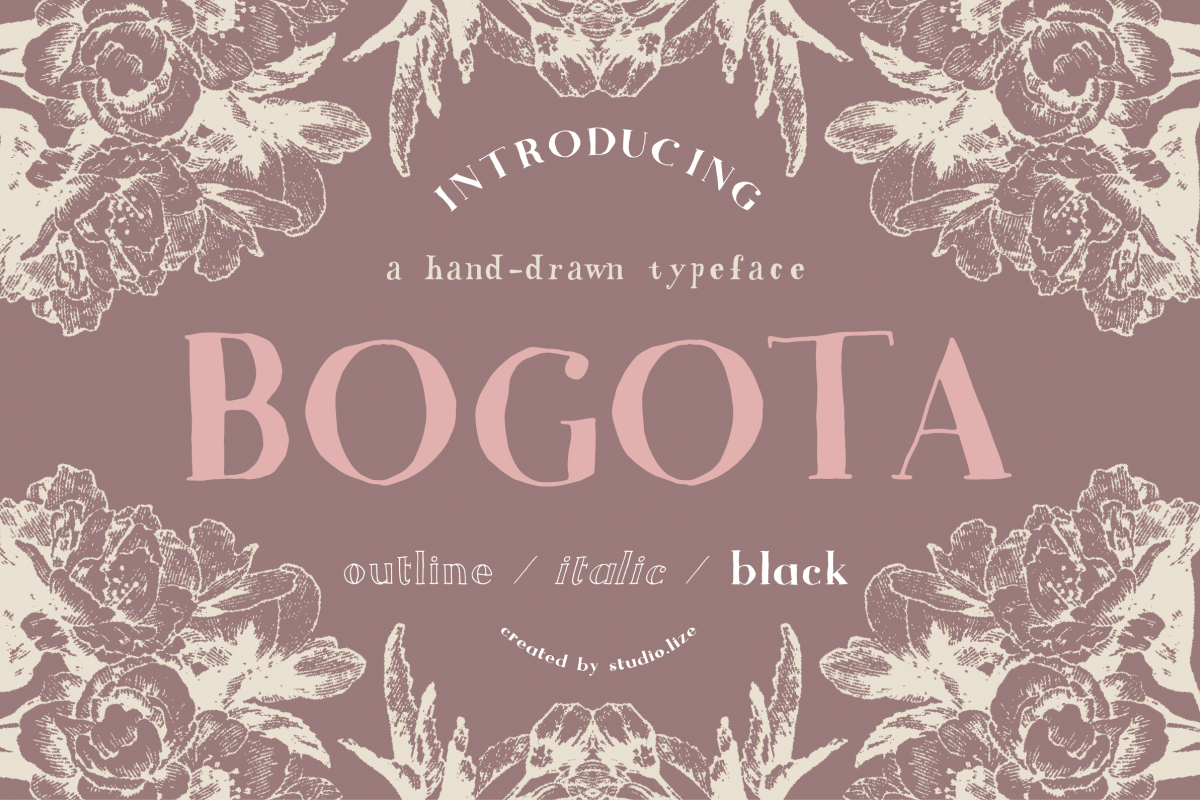
Created By studio.lize
Bogota Handwritten Font
This font was inspired by my recent travels in
Colombia. Bogota is a unique, hand drawn font, perfect for Logotypes,
Apparel Design, Posters, illustration projects and much more. This font
is perfect for making statements and giving your brand/design the
authenticity it deserves.